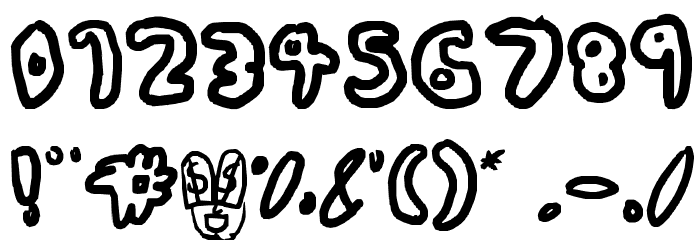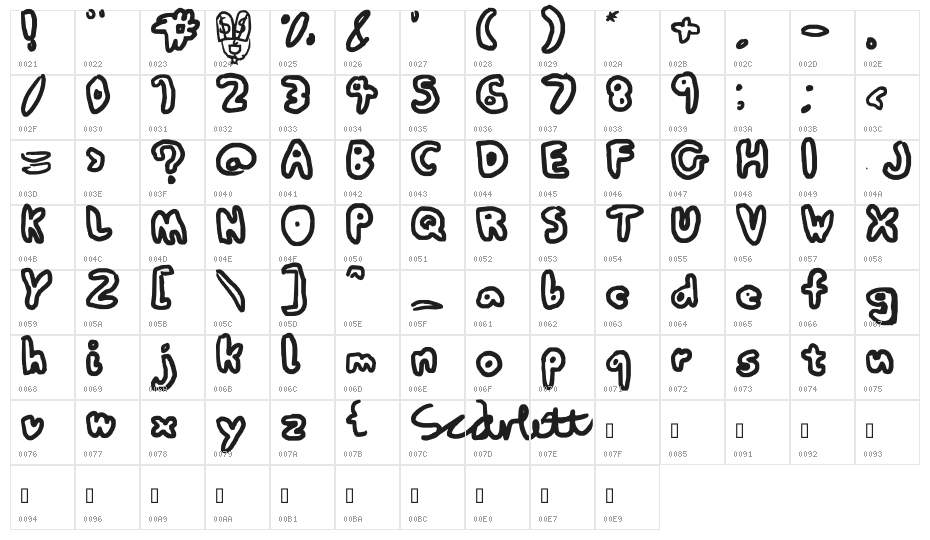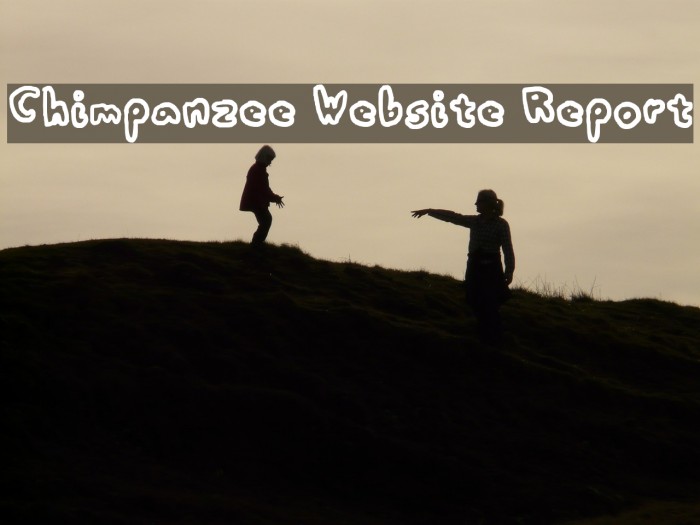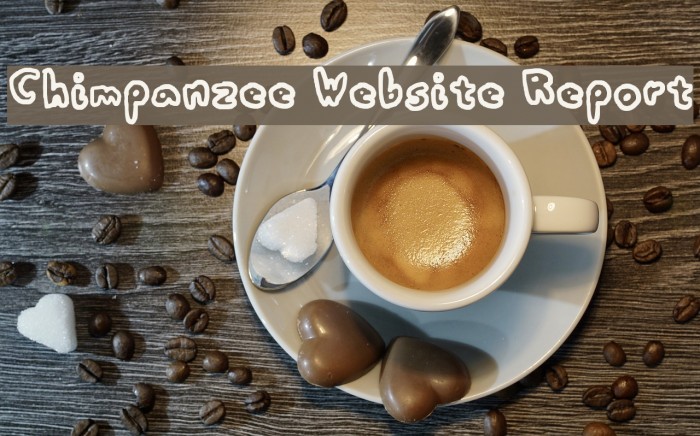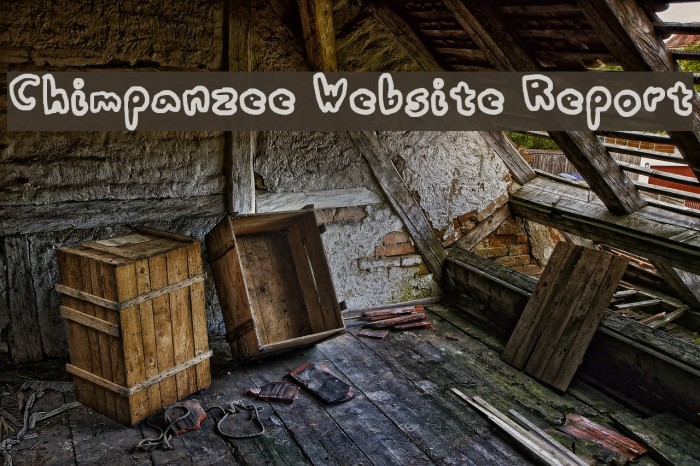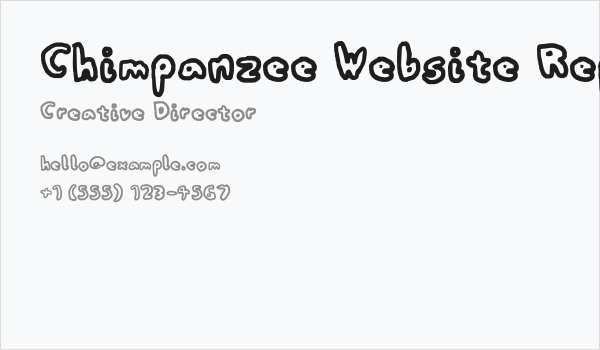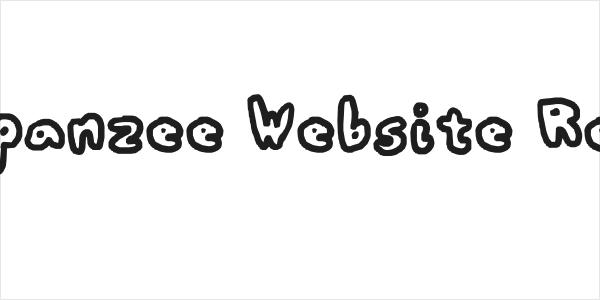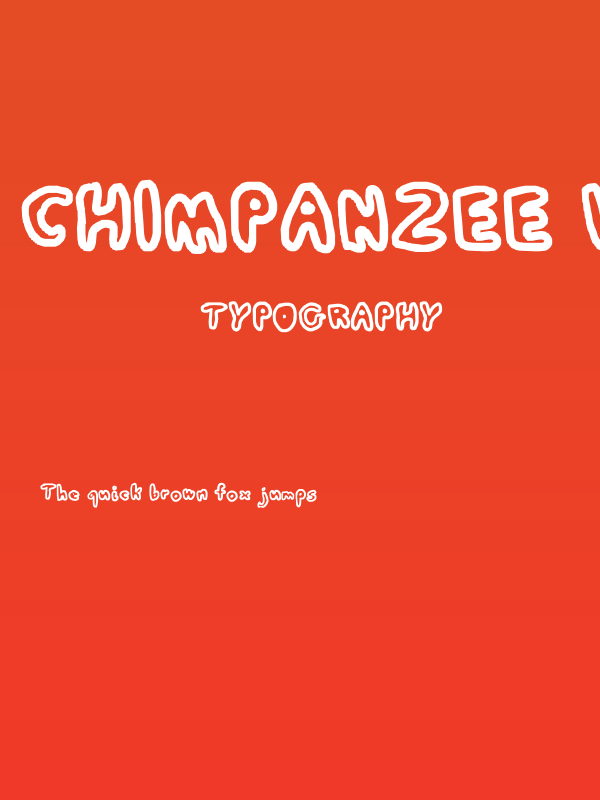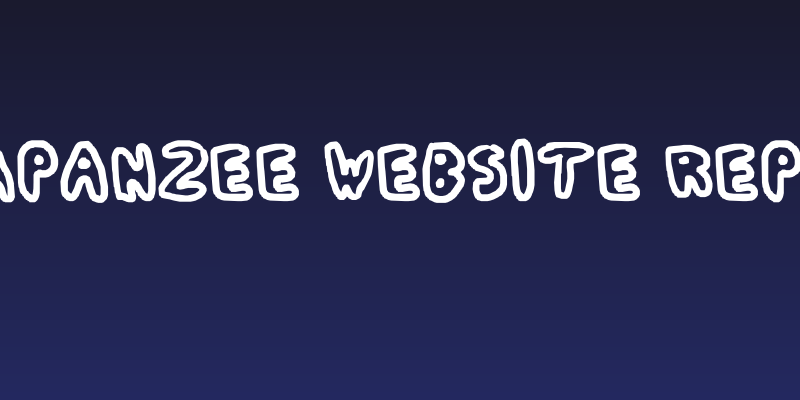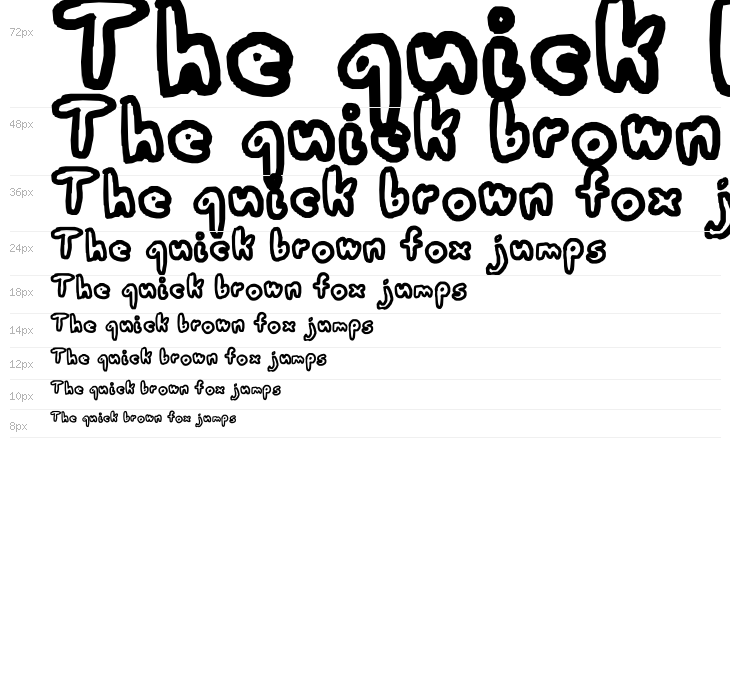
Chimpanzee Website Report Font
Chimpanzee Website Report Description
This playful and bold font features a hand-drawn, cartoonish style with thick, rounded strokes and a whimsical appearance. The characters are slightly irregular, adding to the casual and fun aesthetic. The uppercase and lowercase letters maintain a consistent style, with a noticeable emphasis on rounded edges and a bubbly form. Numbers and special characters follow the same playful design, making the font suitable for creative and informal applications. The overall look is energetic and lively, perfect for projects that require a touch of humor and personality.
| Overall Style | Playful, Cartoonish |
| Proposed Projects | Ideal for children's books, comic strips, playful branding, and party invitations. |